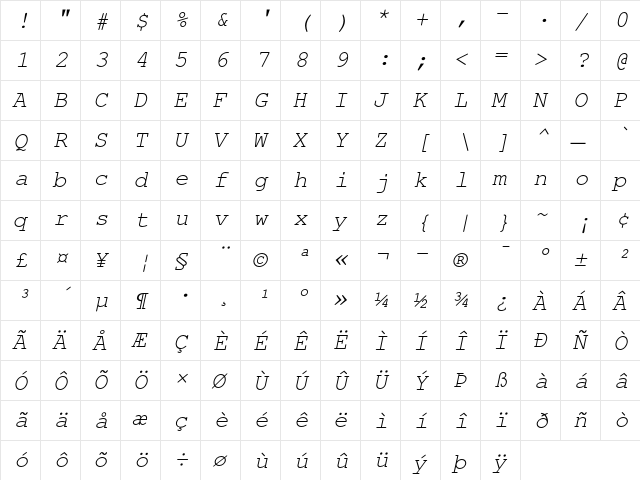
Nimbus Mono L Regular Oblique
Design Context for Nimbus Mono L Typeface
Nimbus Mono L uses fixed-width spacing throughout, giving it the structured, systematic character associated with coding environments and technical documentation. The dynamic lean of this cut emphasises speed and emphasis in any layout.